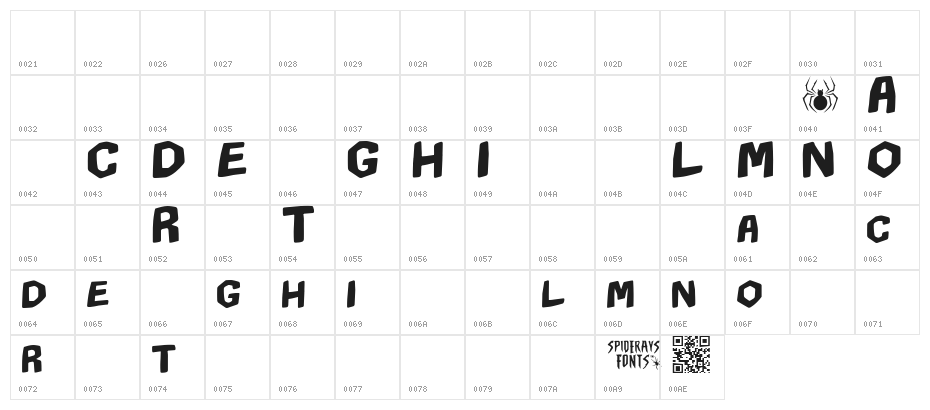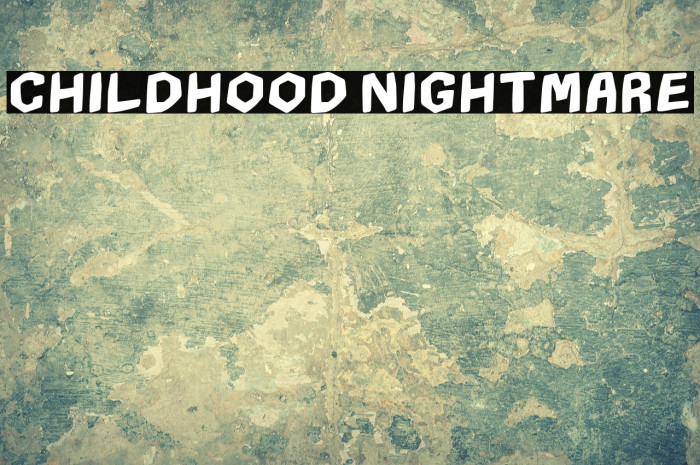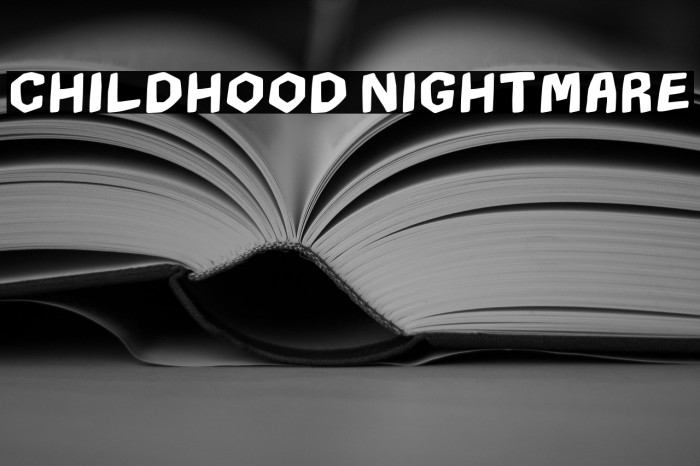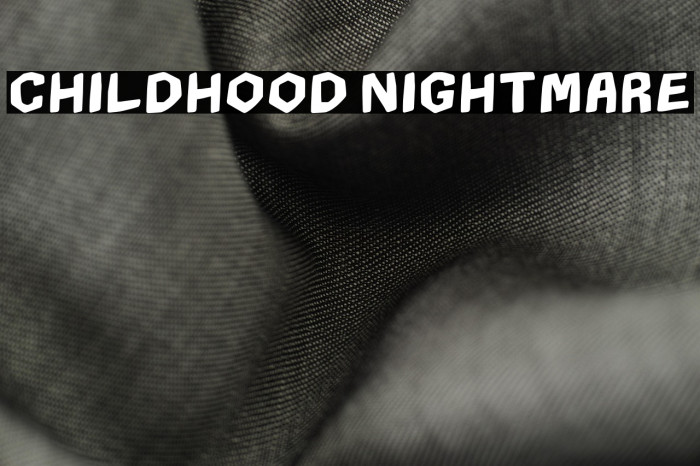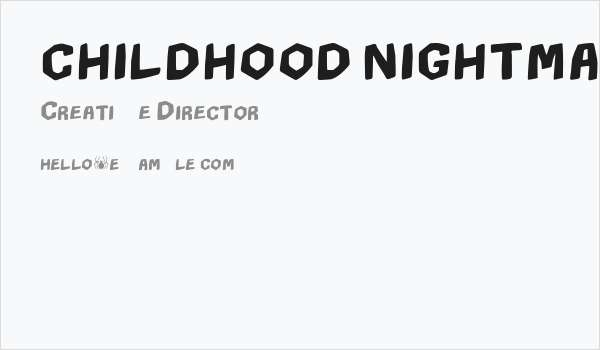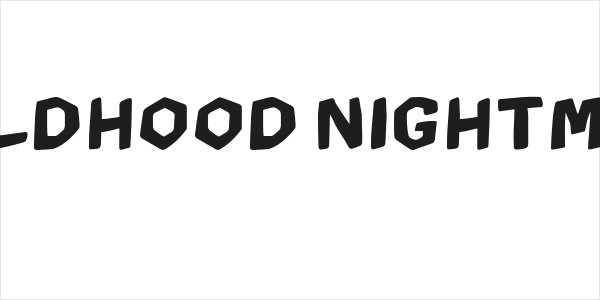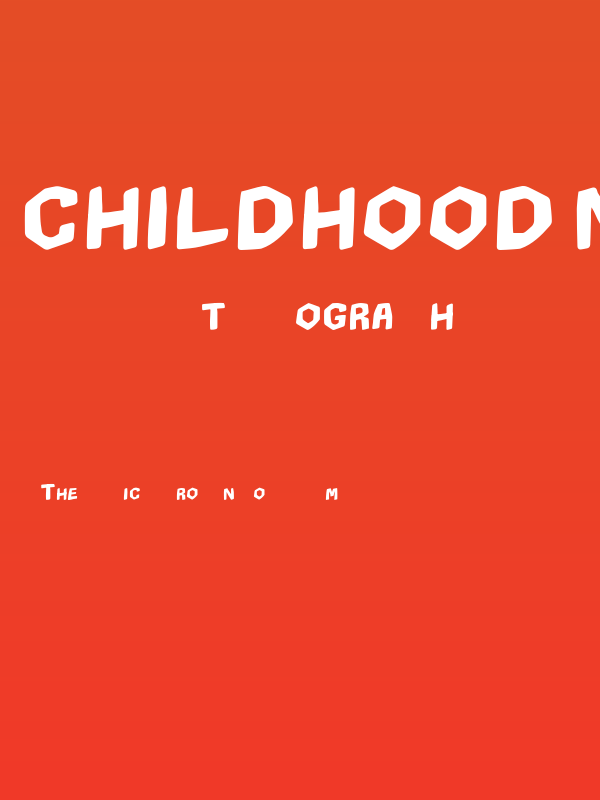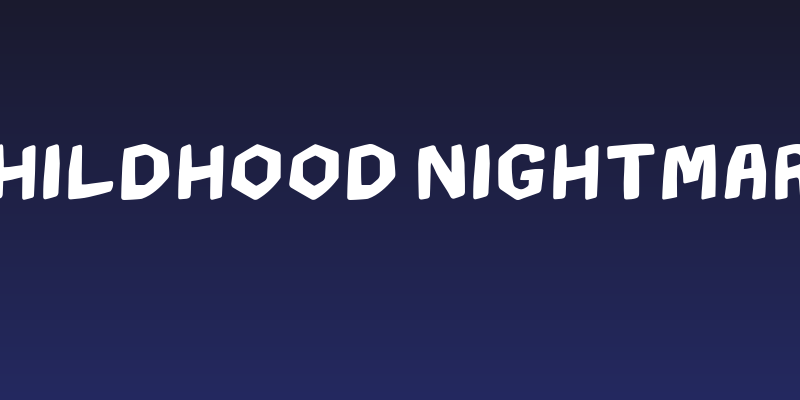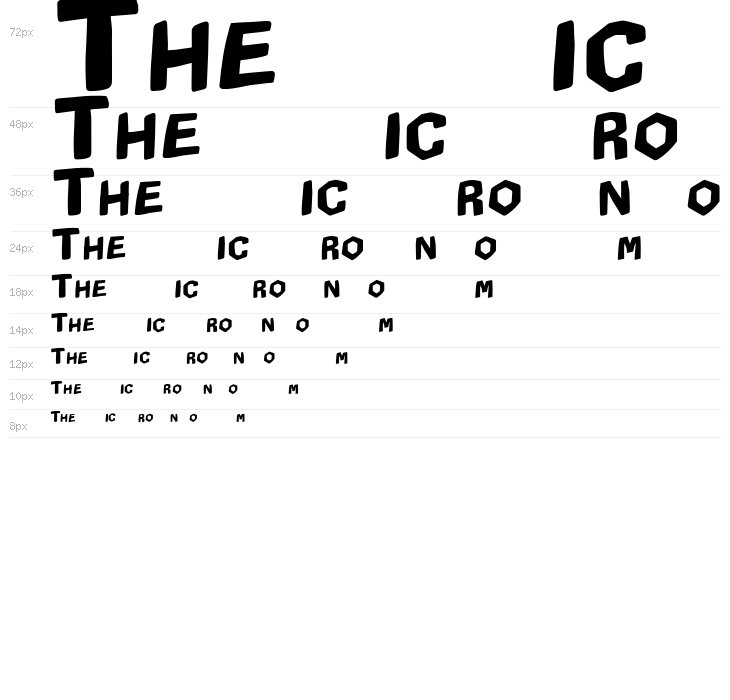
CHILDHOOD NIGHTMARE Font
CHILDHOOD NIGHTMARE Description
This font exudes a playful yet eerie vibe, reminiscent of childhood fears and spooky tales. The letters are irregular and slightly distorted, giving them a hand-drawn appearance that adds to the unsettling charm. The strokes are bold and uneven, with a whimsical touch that makes each character unique. The inclusion of spider illustrations enhances the creepy aesthetic, making it perfect for Halloween-themed projects or anything that requires a touch of the macabre. The font's quirky style is both engaging and unsettling, capturing the essence of a child's imagination running wild with spooky stories.
| Proposed Projects | Ideal for Halloween invitations, horror-themed posters, children's spooky storybooks, and haunted house flyers. |